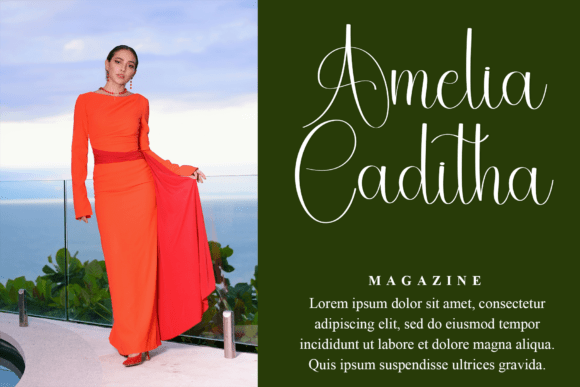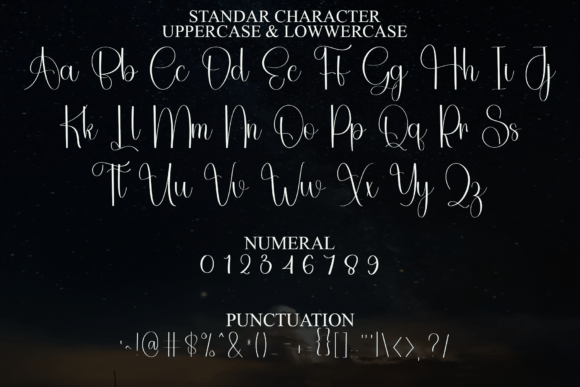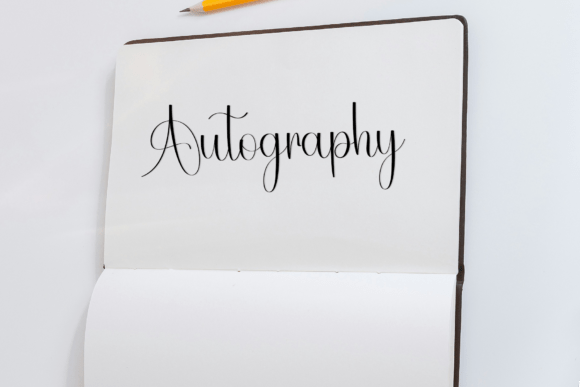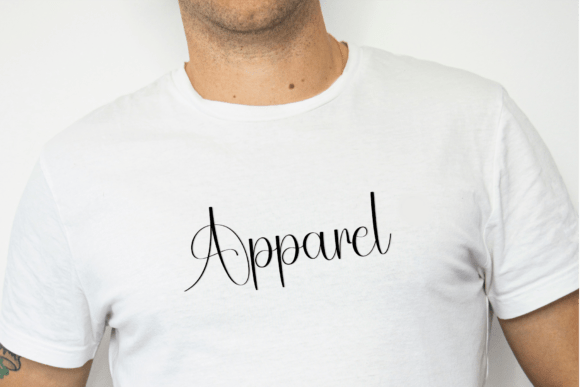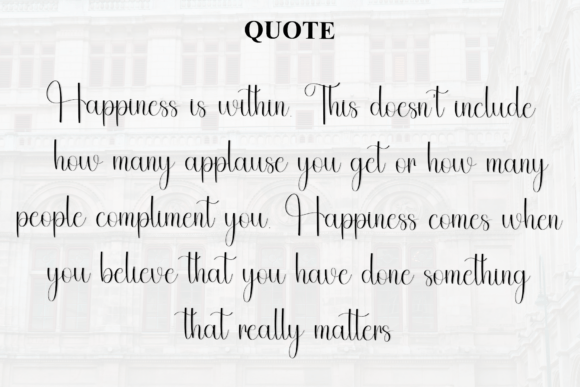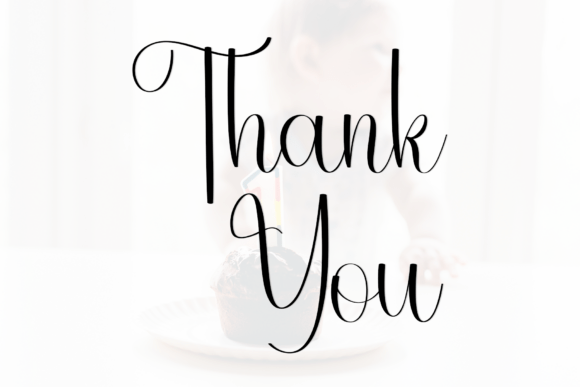
Introducing Happines Birthday Font: The Ultimate Choice for Creative Designs
Are you tired of using the same old fonts for your personal projects, invitations, and social media graphics? Look no further! Happines Birthday Font is here to revolutionize your design game with its casual and creative vibe. This charming font is designed to exude warmth and friendliness, making it perfect for anyone who wants to add a personal touch to their designs.
The Unique Features of Happines Birthday Font
So, what makes Happines Birthday Font stand out from the rest? For starters, its round, playful strokes create a relaxed and approachable feel that’s hard to resist. The font’s hand-drawn aesthetic adds a fun and unique touch to any design, making it perfect for crafters, designers, and DIY enthusiasts. Whether you’re creating a birthday invitation, a social media graphic, or a personal project, Happines Birthday Font is sure to make it shine.
Why Designers and Crafters Love Happines Birthday Font
Designers and crafters love Happines Birthday Font for its ability to add a personal touch to their designs. The font’s casual and creative vibe makes it perfect for a wide range of projects, from wedding invitations to social media graphics. Here are just a few reasons why designers and crafters can’t get enough of Happines Birthday Font:
- Easy to read and understand: The font’s round, playful strokes make it easy to read and understand, even at small sizes.
- Unique and creative: The font’s hand-drawn aesthetic adds a fun and unique touch to any design, making it perfect for crafters and designers who want to stand out.
How to Use Happines Birthday Font in Your Designs
Using Happines Birthday Font in your designs is easy! Here are a few tips to get you started:
- Pair it with other fonts: Happines Birthday Font pairs well with other fonts, so feel free to experiment with different combinations.
- Use it for headings and titles: The font’s bold and playful strokes make it perfect for headings and titles.
- Add a personal touch: Use Happines Birthday Font to add a personal touch to your designs, whether it’s a birthday invitation or a social media graphic.
- Hand-drawn aesthetic with round, playful strokes
- Perfect for personal projects, invitations, and social media graphics